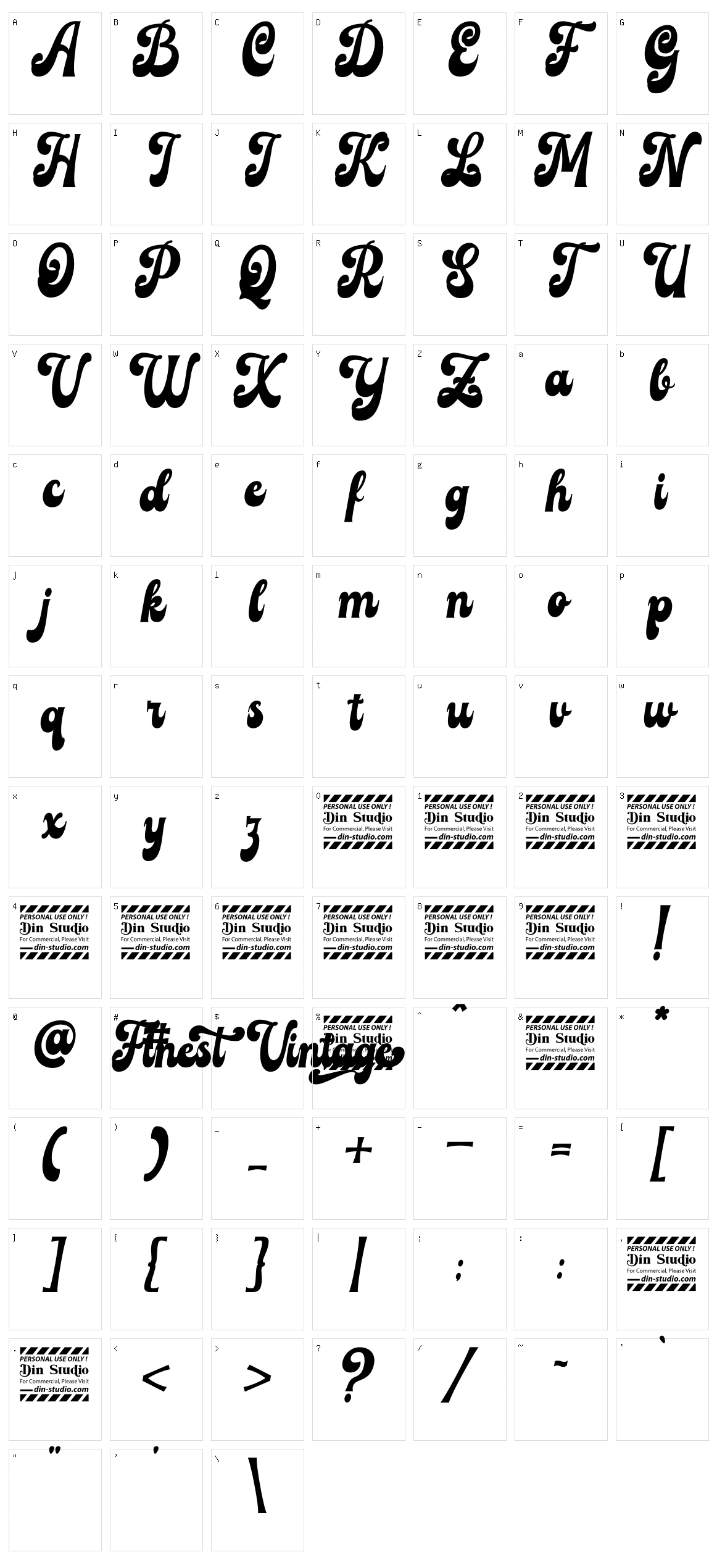
The free font Finest Vintage is carefully designed by Din Studio, showcasing a thoughtful balance of creativity and usability and falls under the Old-School font style. When you download the ZIP file, it contains only 323.19 KB of font files, making it lightweight and quick to download. Please review the license details below to understand permitted usage and distribution rights. If license information is not available, we recommend using this font for personal projects only or contacting the author directly for commercial usage permissions.